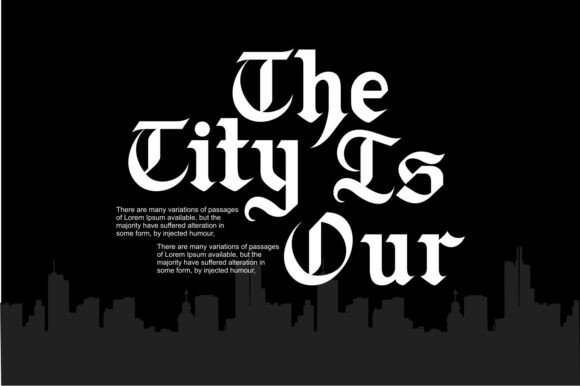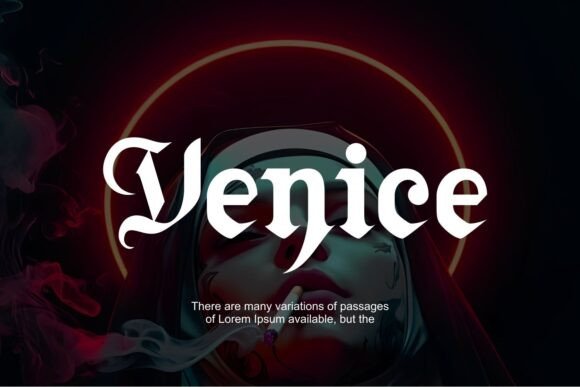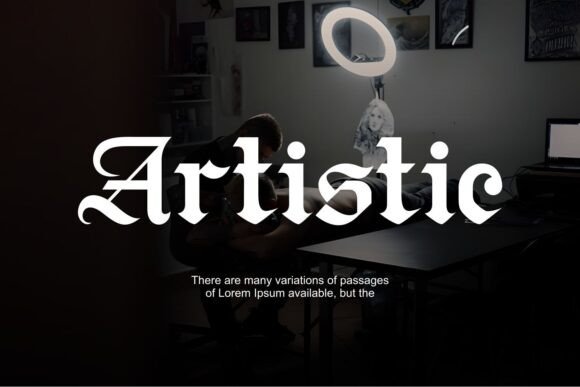
Blitch Font
Elevate your design projects with Blitch Modern Blackletter Tattoo Font, meticulously crafted for artists and designers seeking authentic tattoo-inspired typography. This font is perfect for custom tattoo designs and logos. Compatible with Procreate and Photoshop, these fonts offer seamless integration into your creative workflow. Each font is designed to provide versatility and uniqueness, ensuring your designs stand out.